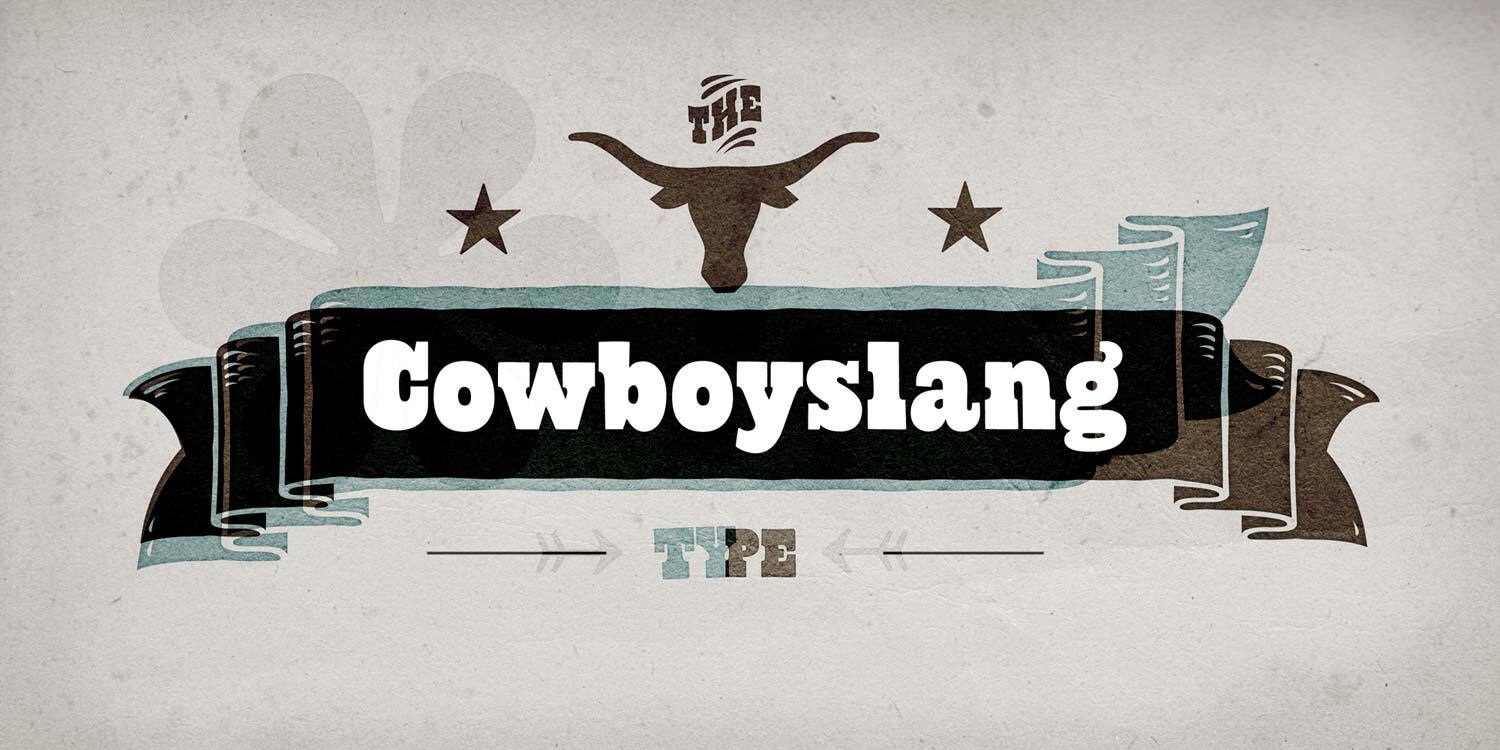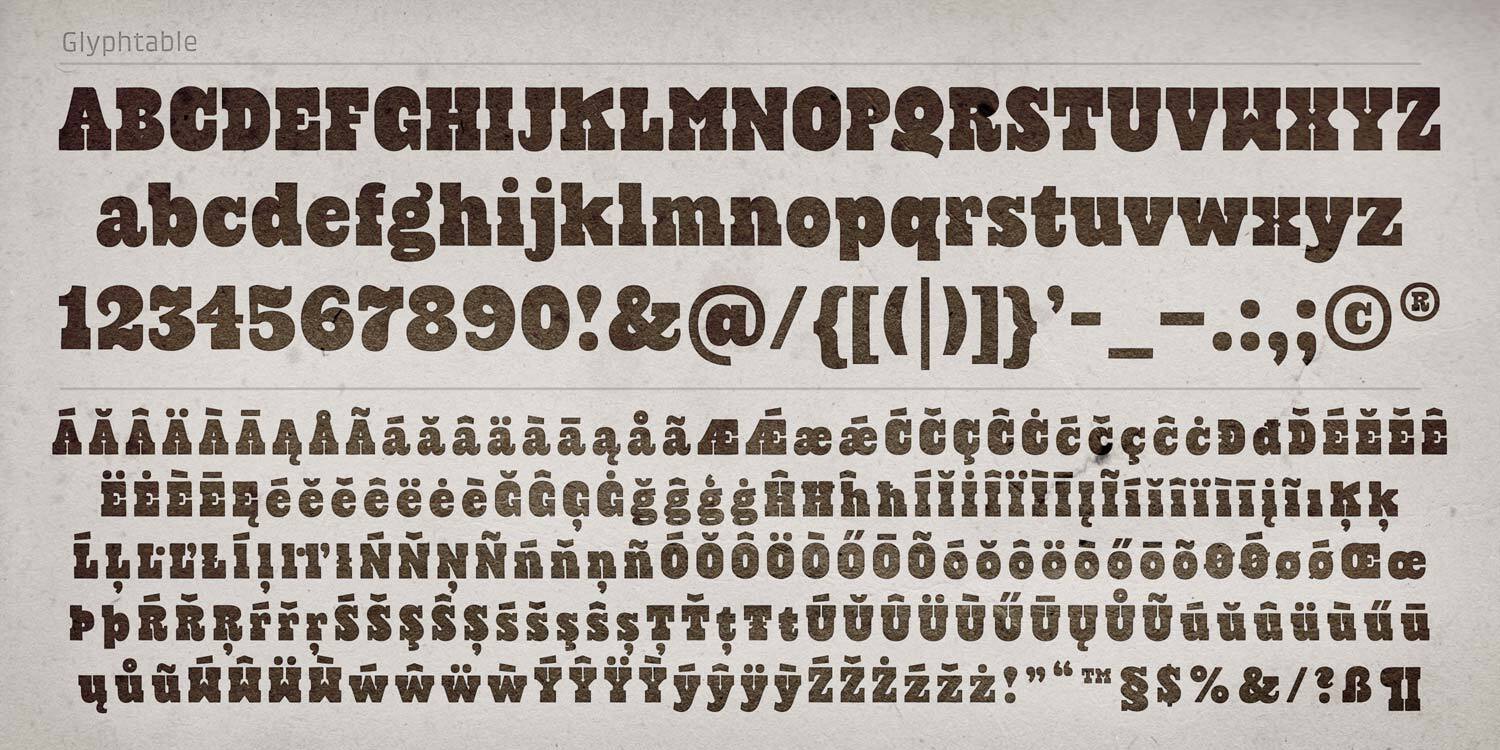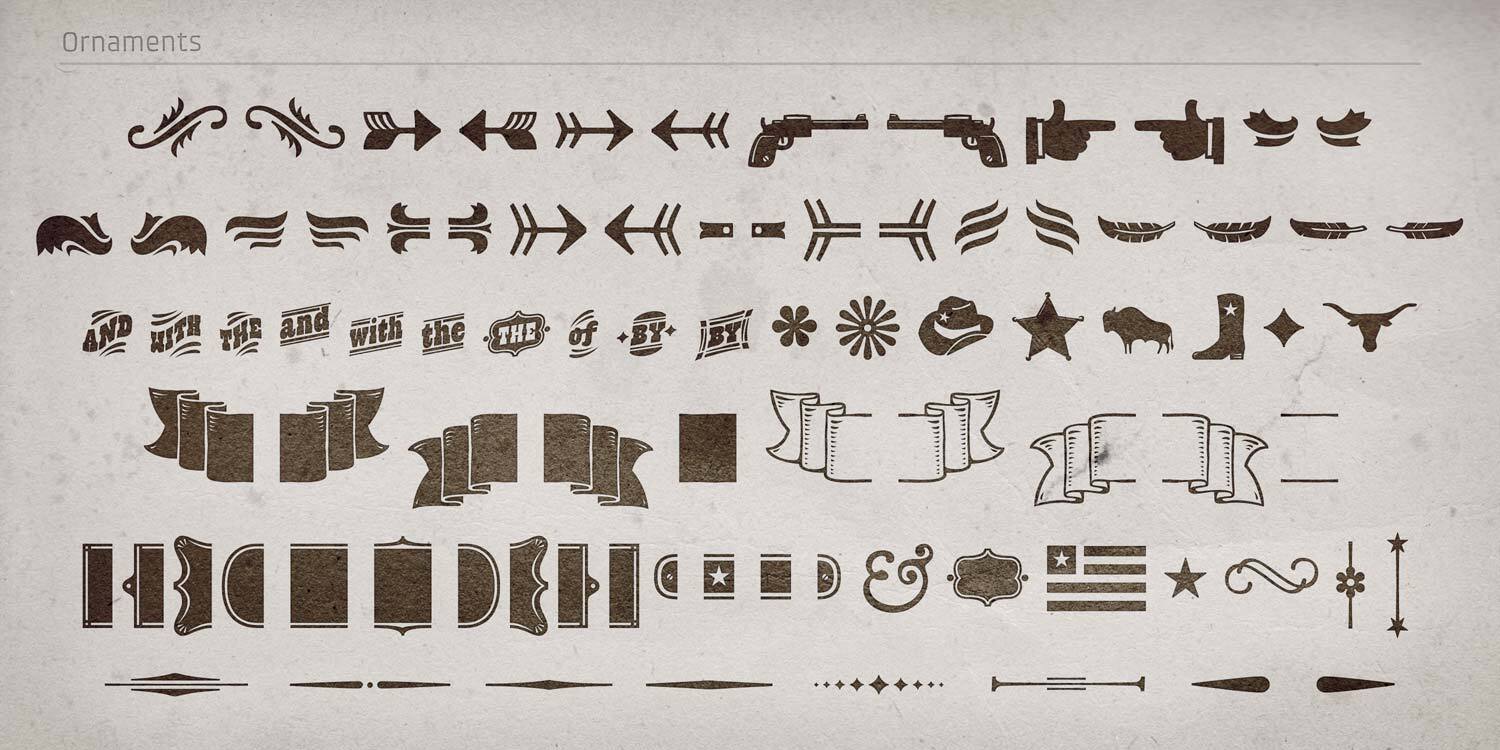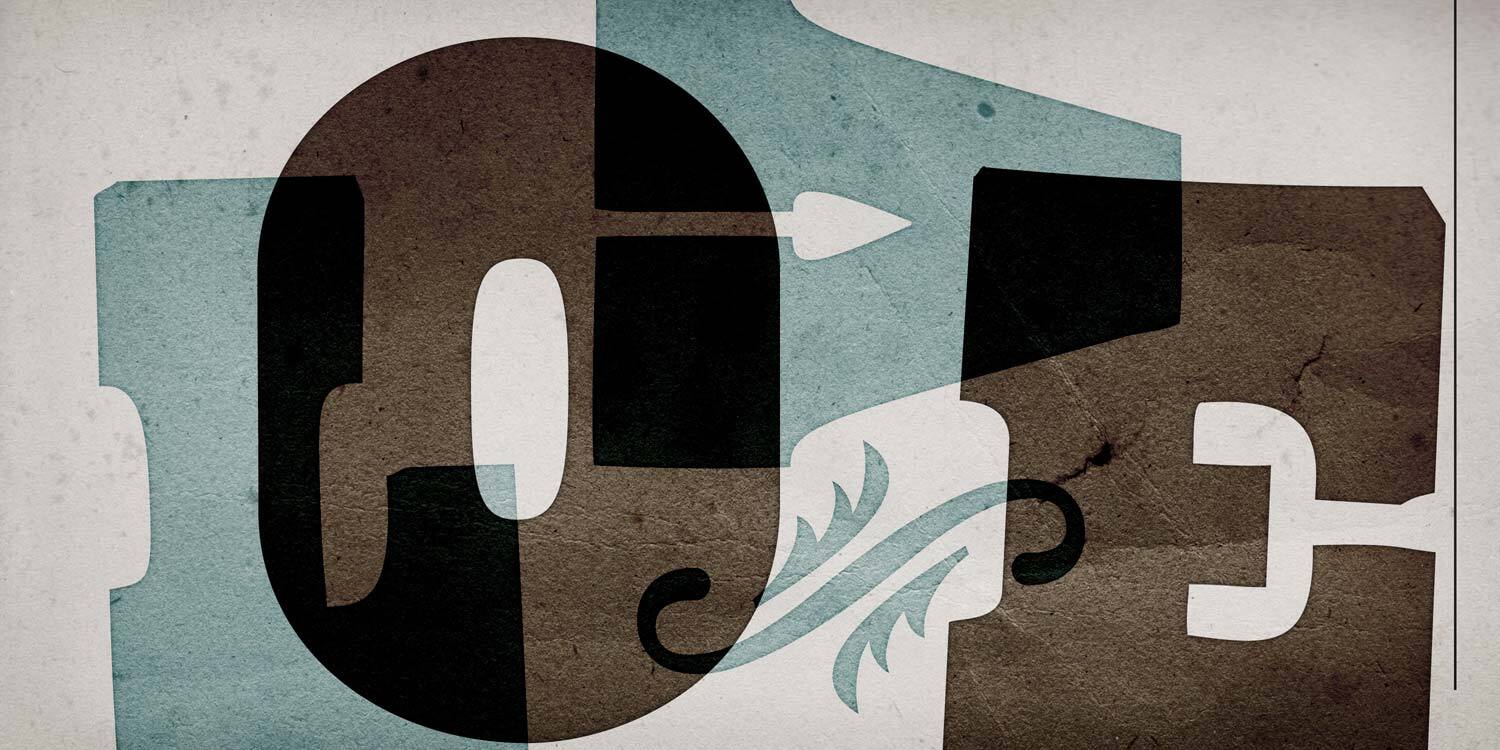
Cowboyslang
Bad Bad Boy —  we will meet at high noon!
Cowboyslang is a display typefamily with a Wild West flair and blocky serifs. Its quirky forms give it an unconventional and unique flavor. Its made out of gunpowder and whisky malt. So take a trip on Mississippi River and type your words!
Ornaments
Cowboyslang is equipped with a nice set of ornaments, dude. The perfect thing to play with.